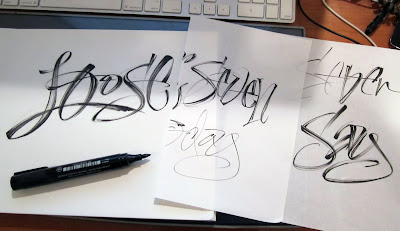
While deleting images from my iMac this morning I found this one. Might be of some interest to show for a dry brush marker technique. I rubbed the tip of a PITT marker in some quick dry varnish sprayed on a piece of cardboard. After a few minutes when the varnish semi cured I got some cool effects. Eventually the varnish cracks off and the marker tip has to be recoated. The varnish will eventually ruin the tip of the marker but its a lot of fun till that happens.